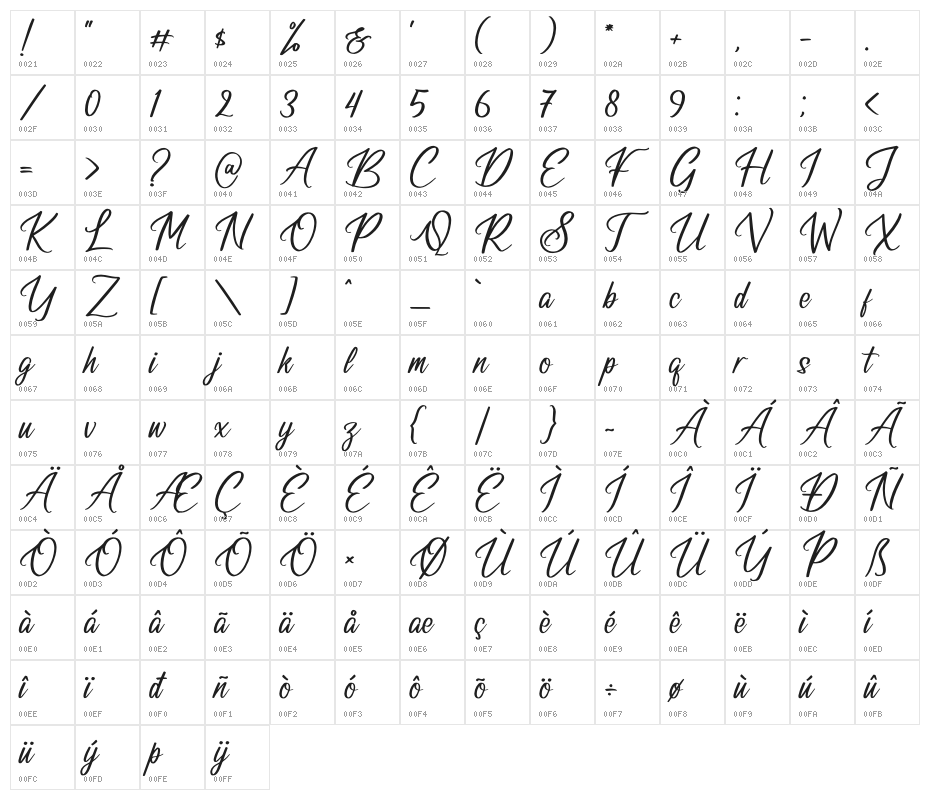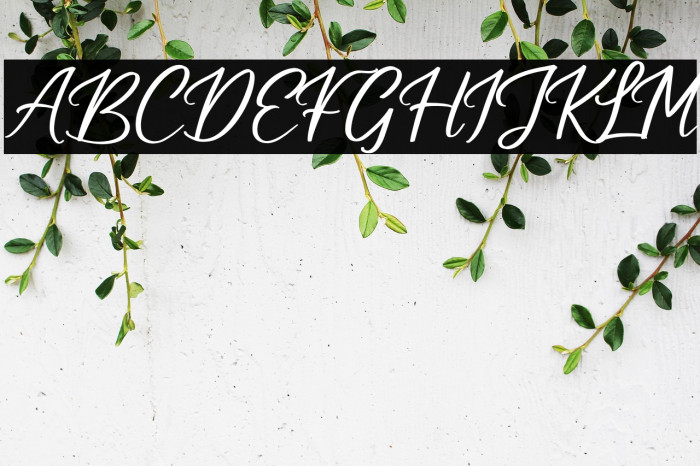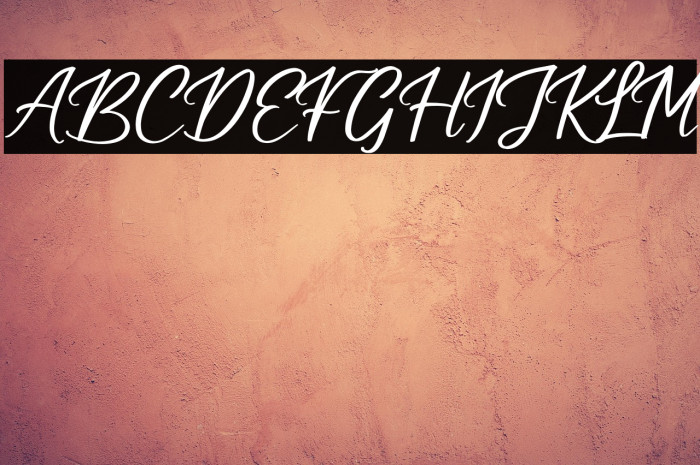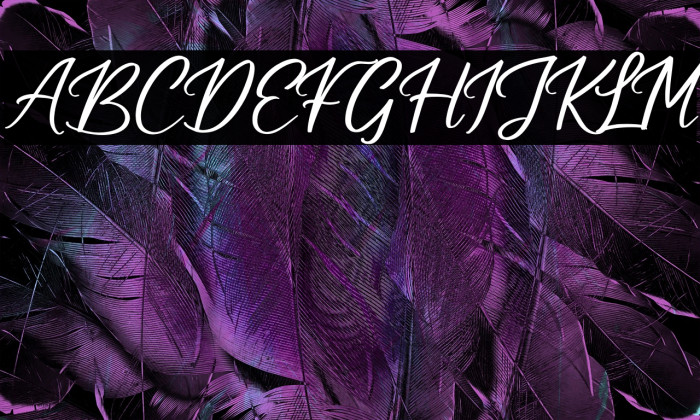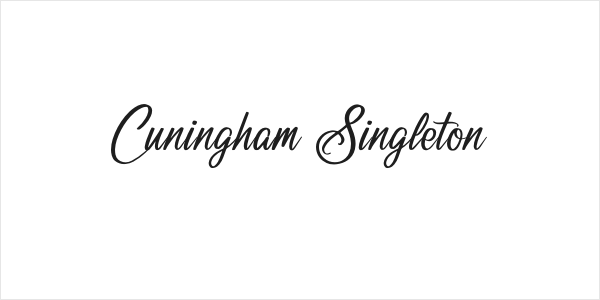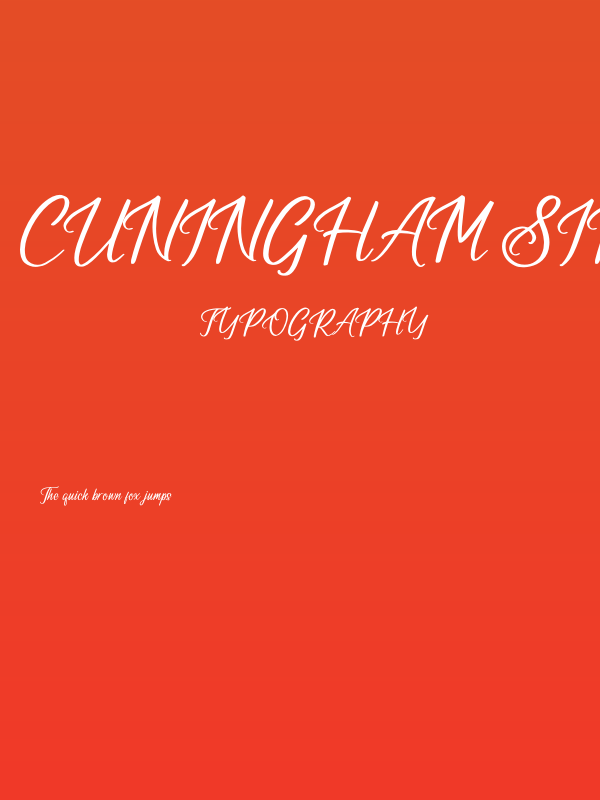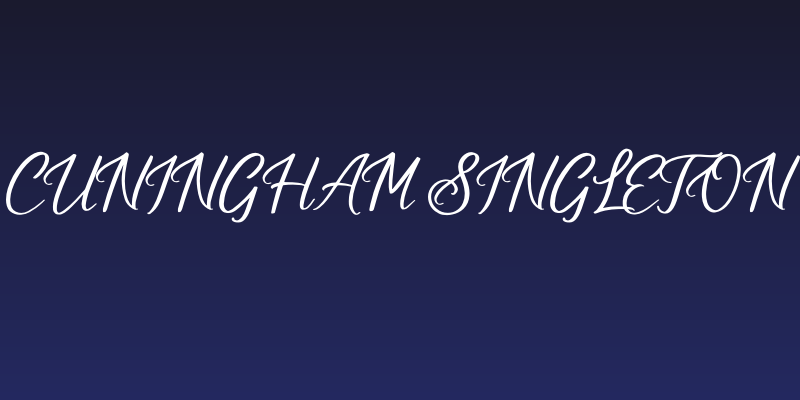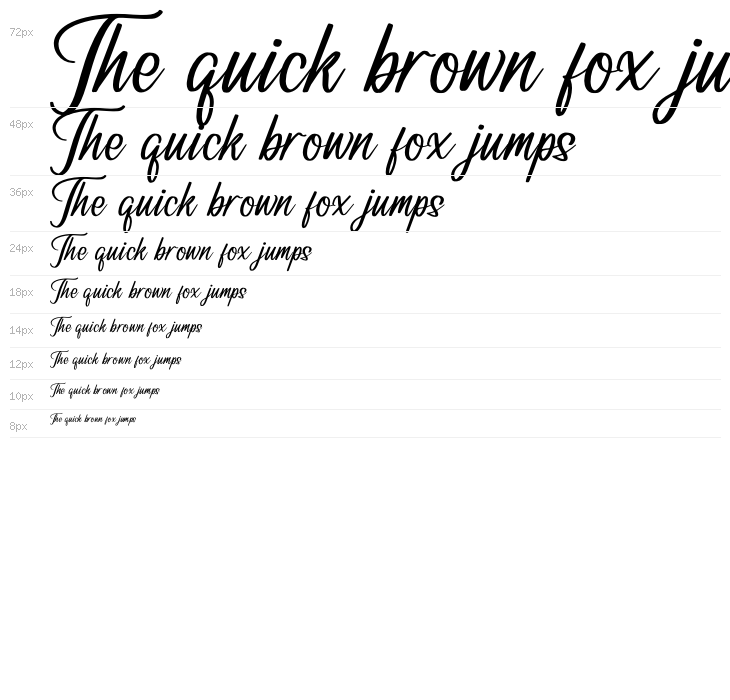
Cuningham Singleton Font
Cuningham Singleton Description
This font features a dynamic and elegant script style, characterized by fluid, cursive strokes that convey a sense of movement and grace. The uppercase letters are particularly expressive, with sweeping lines and a slight slant that adds to the overall flow. The lowercase letters maintain this fluidity, offering a harmonious blend of curves and loops. The numerals are consistent with the script style, featuring rounded forms and a slight slant. Special characters are integrated seamlessly, maintaining the font's cohesive aesthetic. This font exudes a sense of sophistication and is ideal for projects that require a touch of elegance and flair.
| Use Case | Logos, Invitations, Personal Signatures |
| Proposed Projects | Ideal for wedding invitations, elegant branding, personal signatures, and greeting cards. |